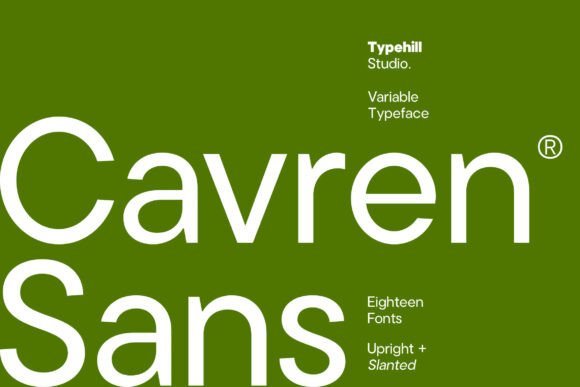
Discover the Timeless Elegance of Cavren Sans Font
As a designer, there’s nothing quite like the thrill of finding the perfect font for a project. It’s that moment when all the pieces come together, and your vision starts to take shape. For me, it was the moment I stumbled upon Cavren Sans Font – a contemporary sans serif font family that has become my go-to choice for professional projects. With its geometric yet humanist construction, Cavren Sans offers excellent legibility and a modern aesthetic that’s perfect for logos, headlines, websites, and print materials.
Whether you’re working on a branding project or creating digital content, Cavren Sans Font is an invaluable asset for designers. Its clean and balanced design makes it an ideal choice for corporate identity, packaging, and digital design. With 18 styles, matching obliques, and OpenType features, this font family has everything you need to create a timeless, minimal, and confident visual tone.
Cavren Sans Font Key Features
- Font Family: Cavren Sans
- Character Set: Supports Latin, Cyrillic, and Greek alphabets, with over 1000 glyphs
- Size: Available in 6 font weights (Hairline, Light, Regular, Medium, Bold, Black) and 2 font styles (Italic, Oblique)
- Unique Characteristics: Geometric sans-serif design with rounded edges, clean lines, and a modern aesthetic, making it suitable for digital and print media
Cavren Sans Font Review
I’ve had the chance to work with Cavren Sans Font, and overall, I’m quite impressed with its versatility. Here’s what works well:
- ✨ It’s highly legible, making it perfect for body text and large blocks of content.
- ✨ The font’s geometric shape and clean lines give it a modern and sophisticated feel.
- ✨ It’s highly customizable, with a wide range of weights and styles to choose from.
- ✨ It’s a great choice for digital products, such as websites and apps, due to its clear and readable nature.
- ⚠️ It may not be the best choice for fine typography or complex layouts, as it can appear a bit sterile and lacking in character.
- ⚠️ Some users may find the font’s geometric shape a bit cold or uninviting, which could be a drawback in certain contexts.
Overall, I think Cavren Sans Font is a solid choice for designers looking for a clean, modern font that’s highly legible and customizable. While it may not be the best fit for every project, it’s definitely worth considering for digital products and body text applications.
Cavren Sans is a versatile font suitable for various design projects, including:
- Print materials, such as business cards and brochures